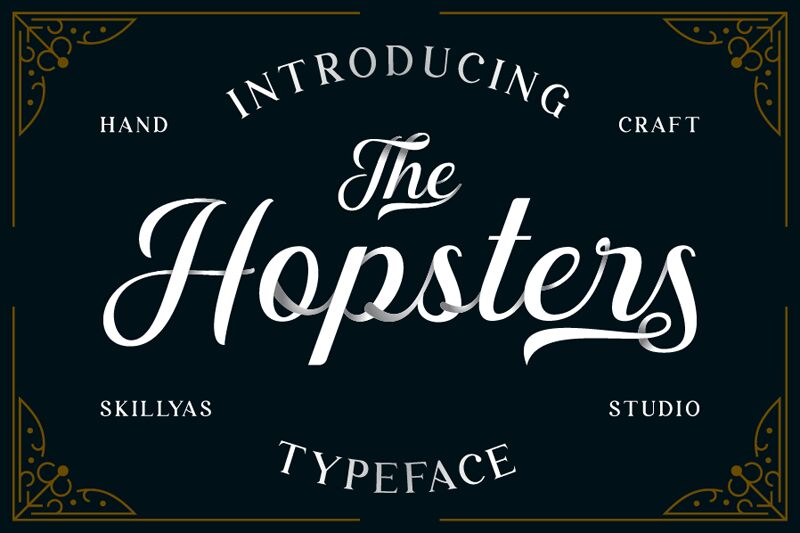
Step into the world of elegance and refinement with Hopsters, a captivating calligraphy font meticulously crafted by the artisans at skillyasstudio.com. With its graceful curves and sophisticated flourishes, Hopsters brings a touch of luxury to every word it adorns.
This font is not just a collection of letters; it's an artistic expression that elevates your design work to new heights. Whether you're designing an exquisite logo, fashioning striking posters, or adding flair to vintage signage, Hopsters is your quintessential partner for conveying opulence and charm.
The versatility of Hopsters makes it perfect for magazine layouts, photography overlays, and bespoke vintage lettering. It seamlessly blends classic calligraphic elements with modern design sensibilities to create a visual narrative that's both timeless and contemporary.
Embrace the allure of Hopsters in your next creative endeavor and watch as it adds that coveted luxury spark to your projects.